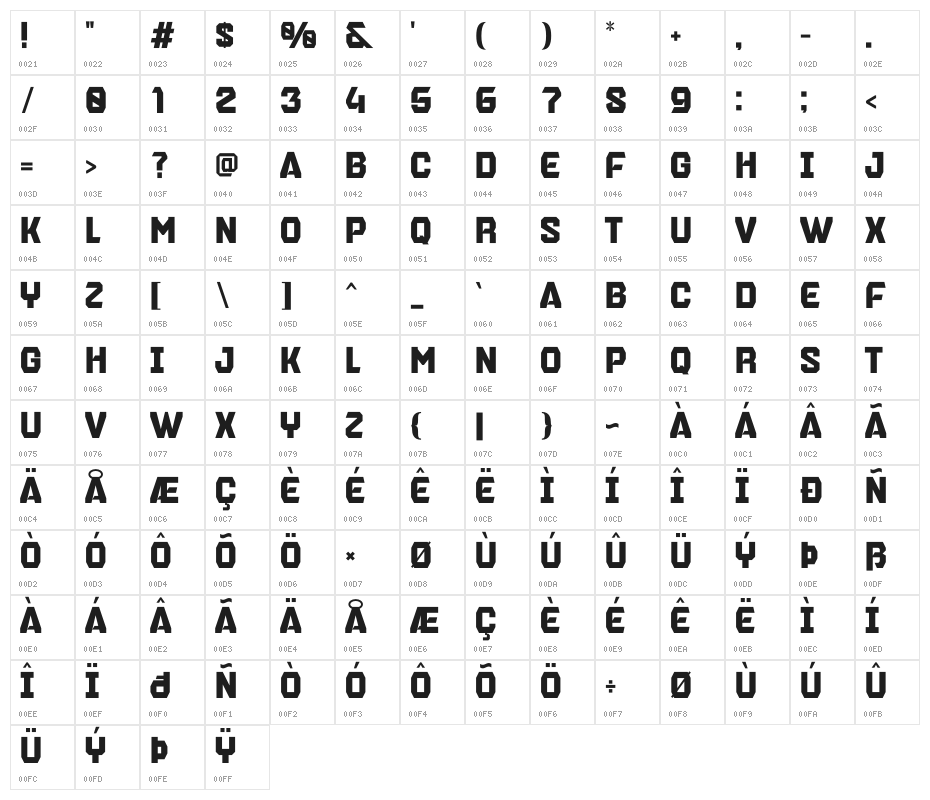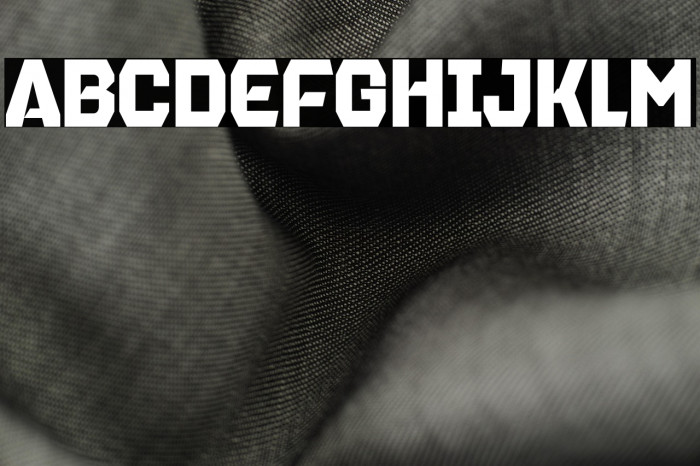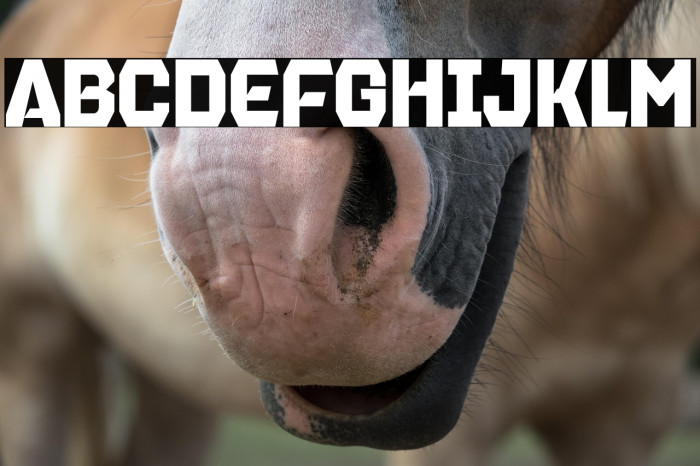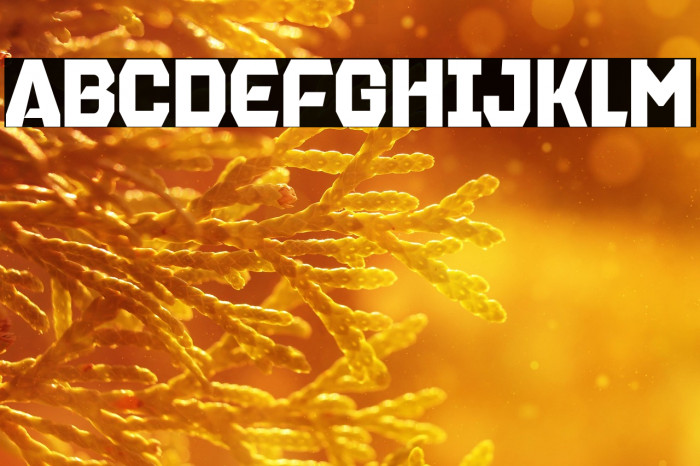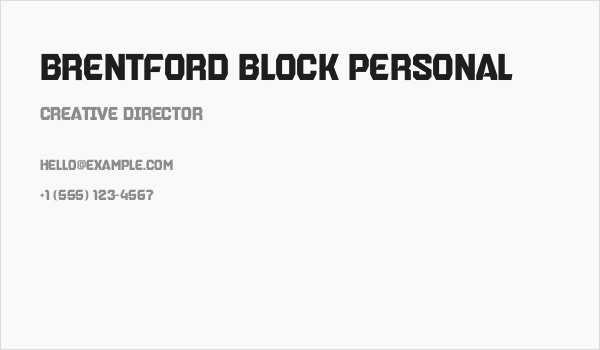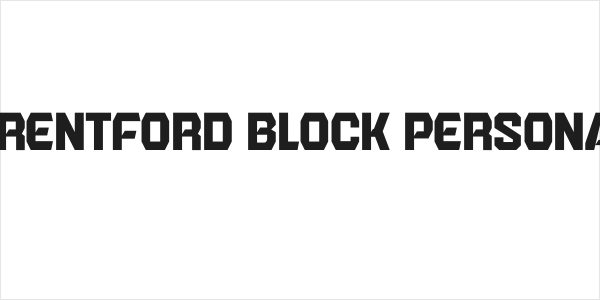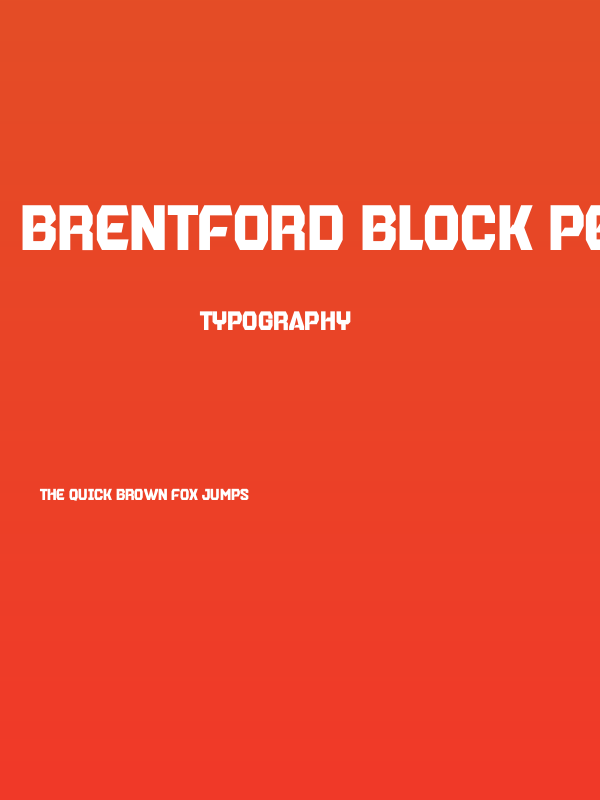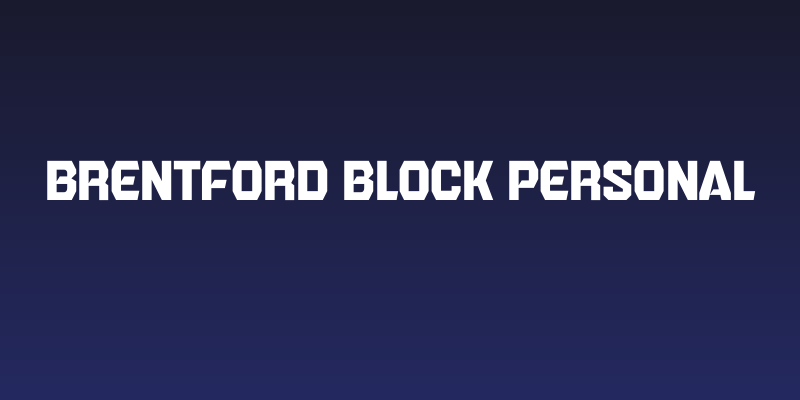
Brentford Block Personal Font
Brentford Block Personal Description
This font exhibits a bold and geometric style with a strong presence. The characters are constructed with sharp angles and straight lines, giving it a blocky and robust appearance. The uppercase and lowercase letters maintain a consistent weight, contributing to a uniform look. The numerals and special characters follow the same design principles, ensuring cohesion across all glyphs. The font's distinct style makes it suitable for projects requiring a bold statement.
| Proposed Projects | Ideal for branding, posters, headlines, and any design needing a bold, impactful typeface. |